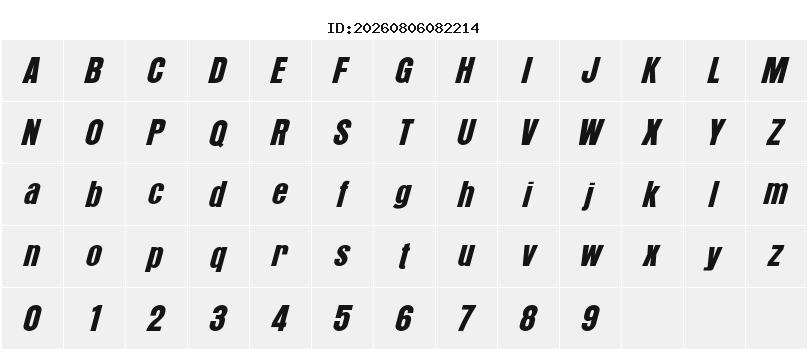
Ornoli Preview
• Font Name: Ornoli
• Full Font Name: Ornoli Italic
About Ornoli.ttf
Ornoli.ttf is a modern, elegant sans-serif font designed for ultimate readability and visual harmony. Perfect for branding, headlines, web design, and print materials.